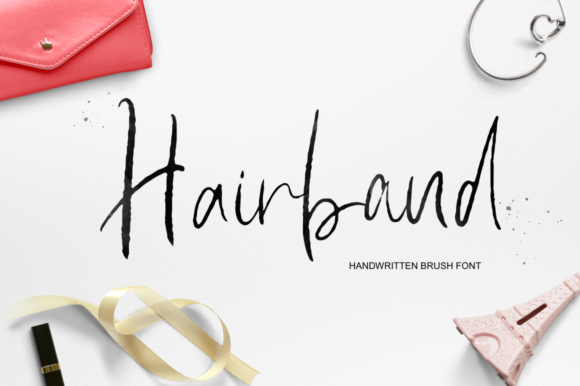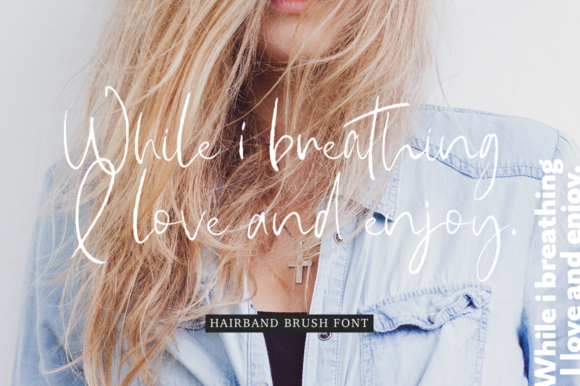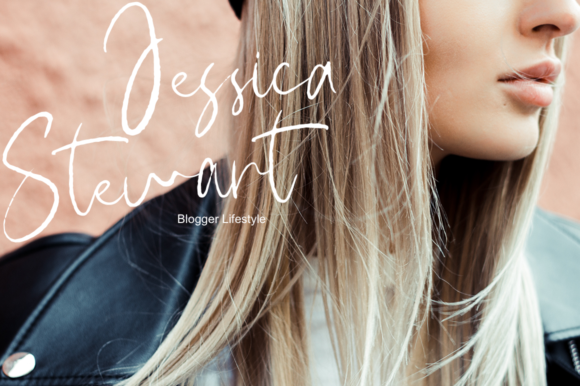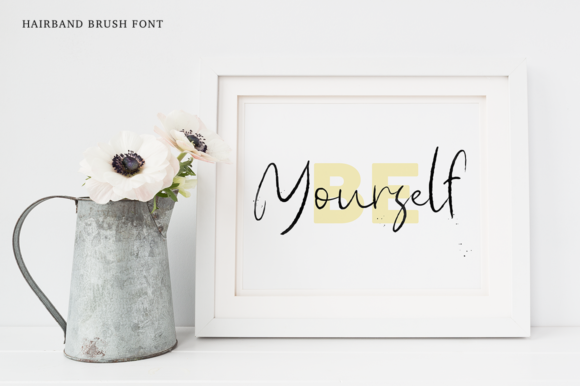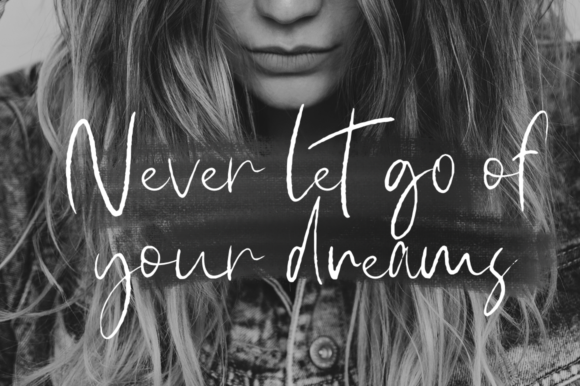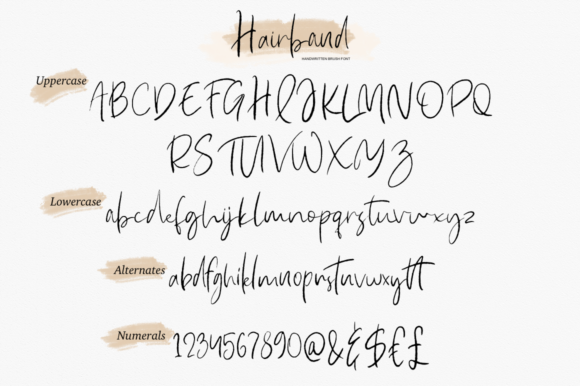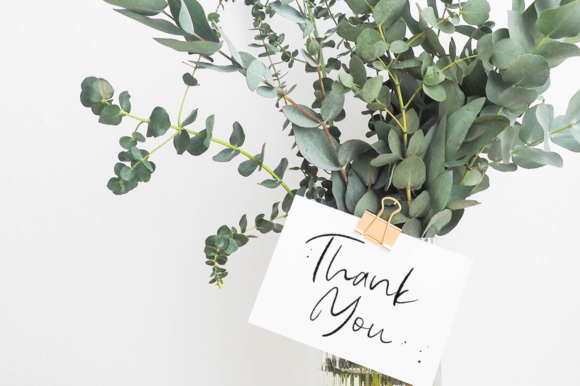
Hairband Font
About Hairband Font
The Hairband is a natural handwritten brush font. It’s ideal for branding and decorating your projects, creating wedding invitations, book covers, marketing, and much more!